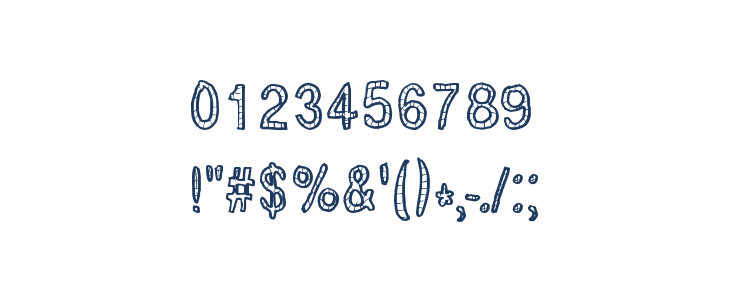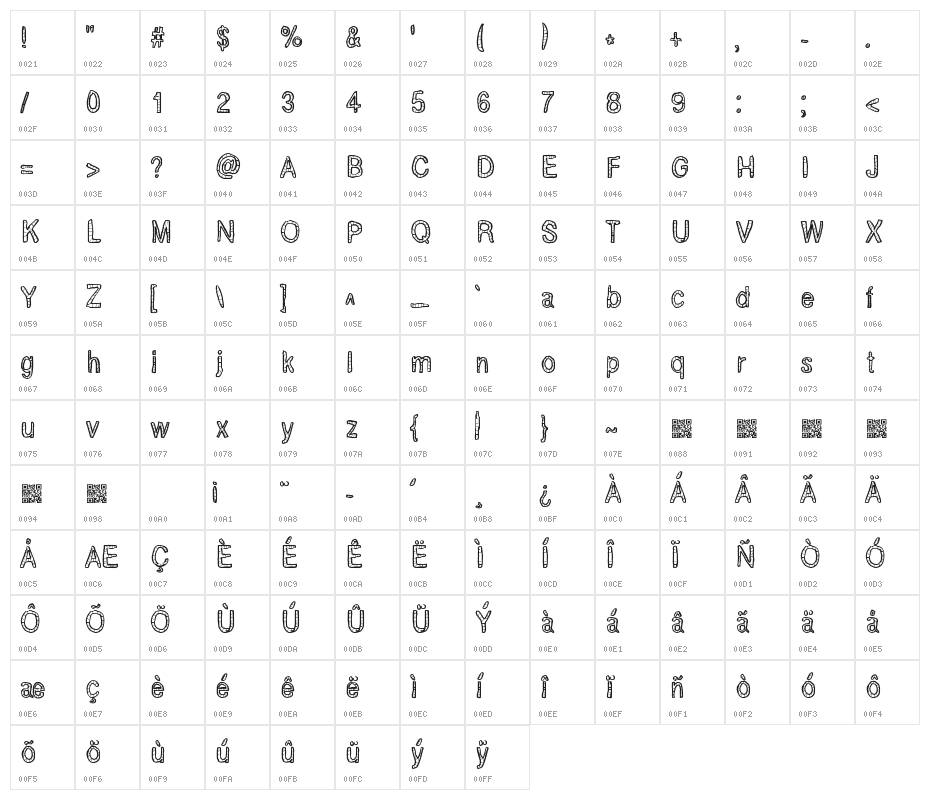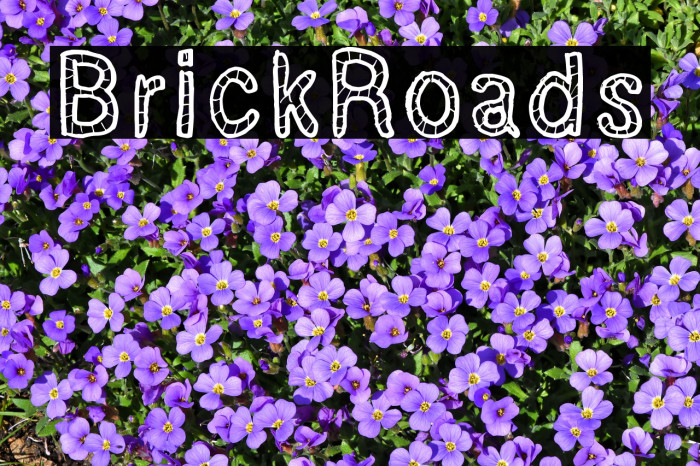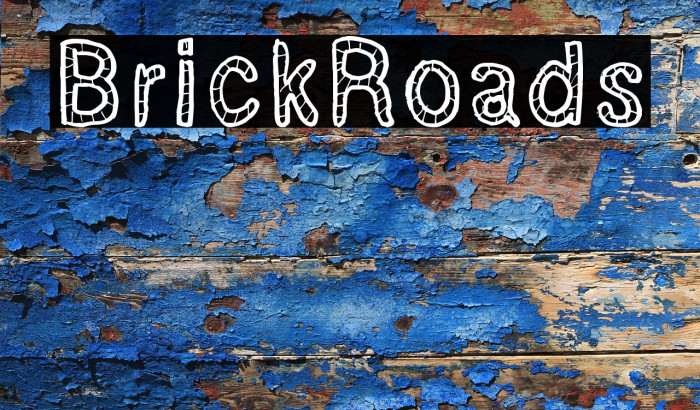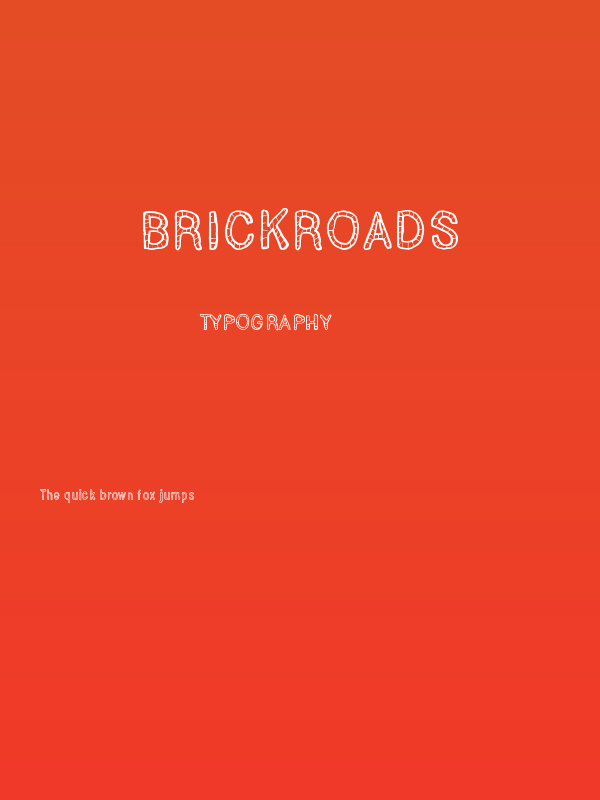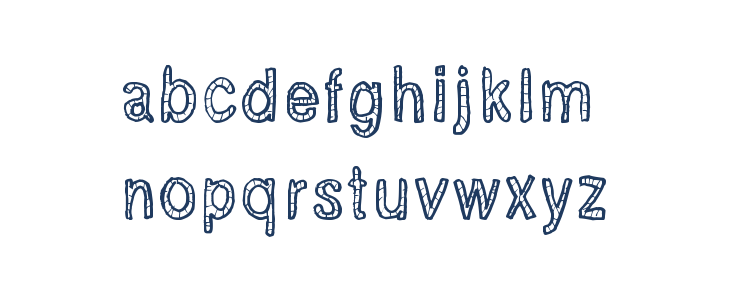
BrickRoads Font
BrickRoads Description
This playful and decorative font features a unique brick-like pattern within each character, giving it a textured and three-dimensional appearance. The letters are bold and slightly irregular, adding a hand-drawn, whimsical feel. The uppercase and lowercase letters maintain a consistent style, with rounded edges and a casual, friendly look. Numbers and special characters are designed with the same brick motif, ensuring a cohesive visual theme throughout. This font is ideal for projects that require a fun and engaging aesthetic.
| Proposed Projects | Perfect for children's books, playful branding, posters, and creative invitations. |